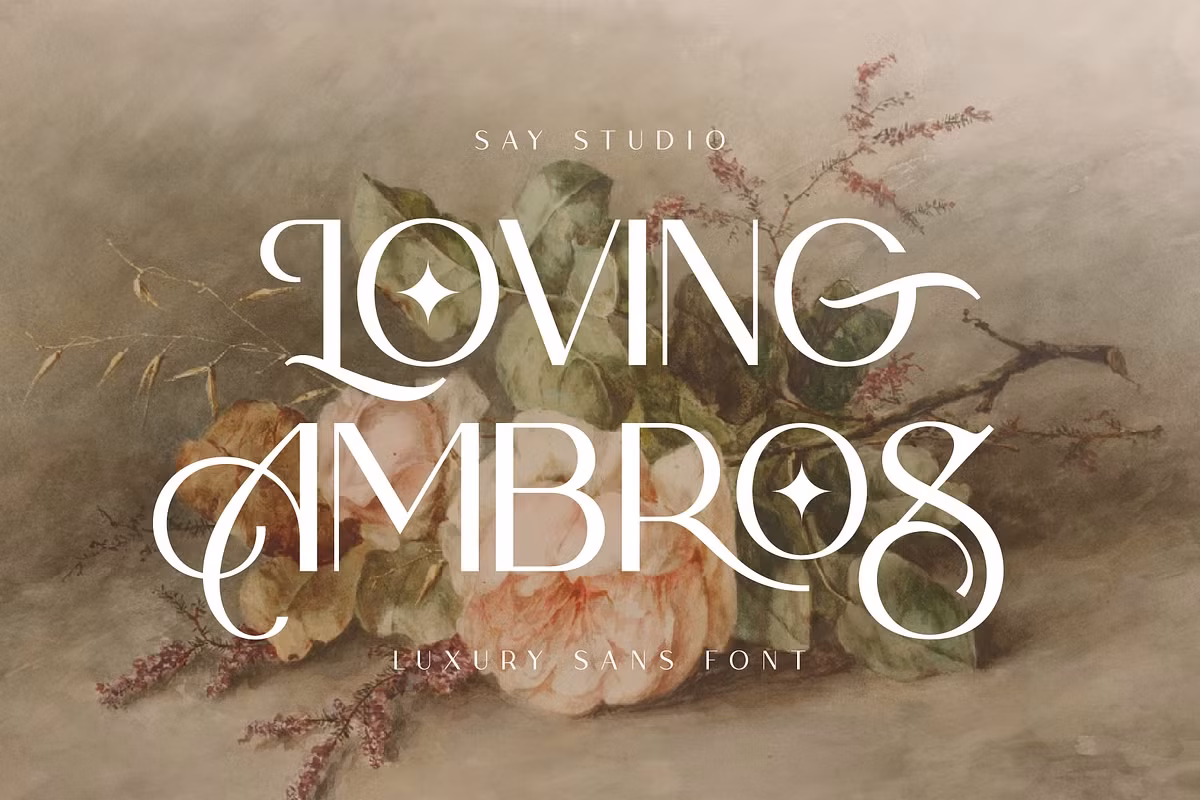
Loving Ambros is an elegant serif typeface designed by Say Studio, blending classic calligraphy with modern design elements. It features two styles: Regular and Italic, each offering 50 unique alternates and 69 ligatures, providing versatility for various design applications.
Design: Combines traditional calligraphic influences with contemporary aesthetics, making it suitable for luxury branding, editorial designs, and elegant headings.
Usage: Ideal for headlines, titles, logos, packaging, and social media graphics, especially in projects emphasizing elegance, romance, and fashion.